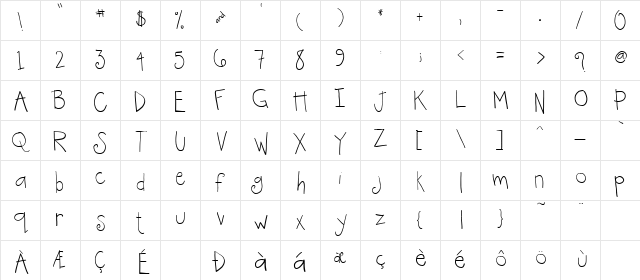
2Peas Sprinkler Regular
Design Context for 2Peas Sprinkler Typeface
2Peas Sprinkler takes a measured approach to typography — its balanced proportions and neutral character make it a reliable workhorse for both digital and print work.